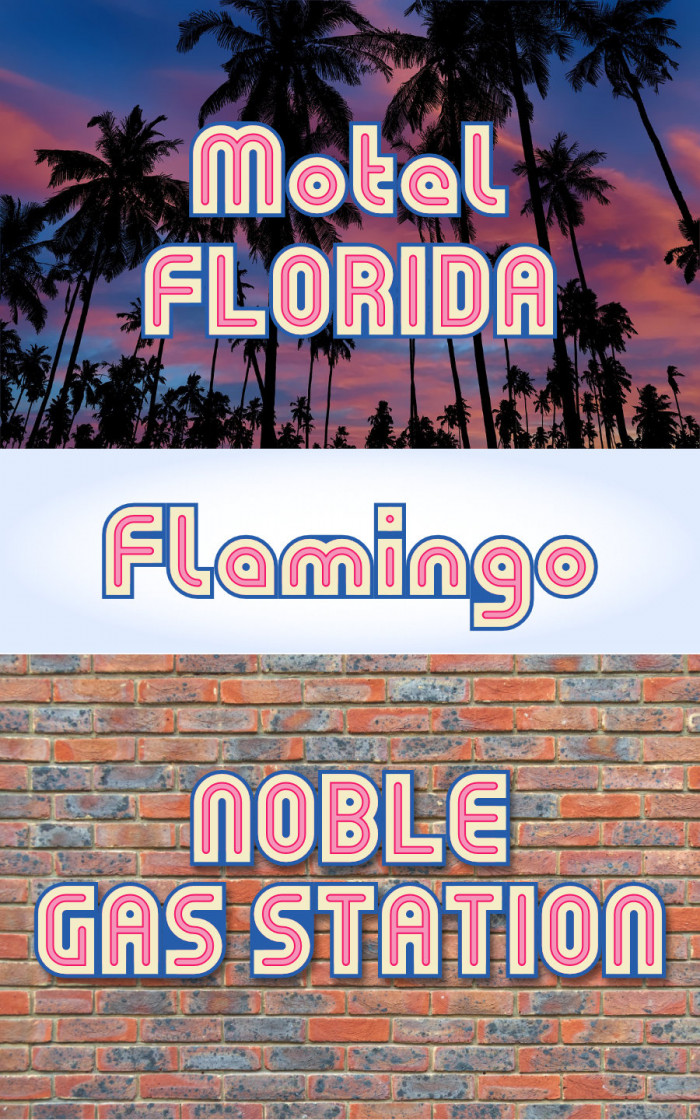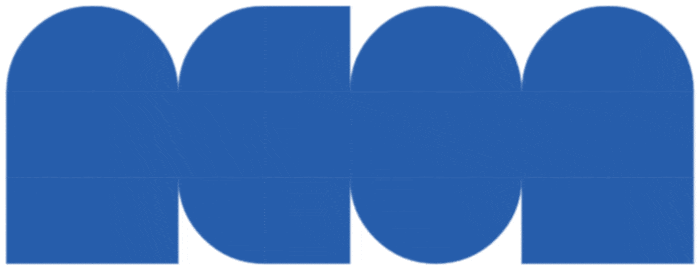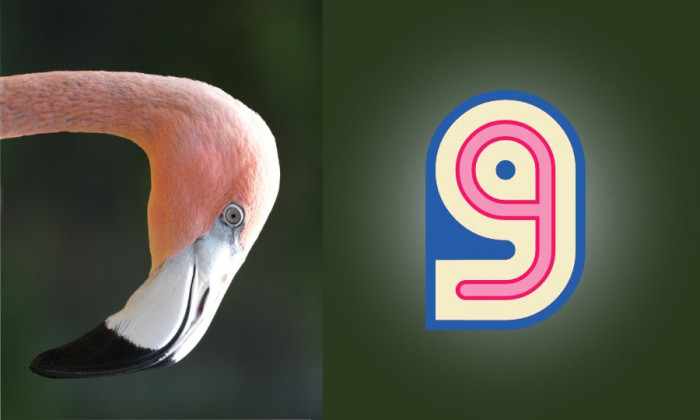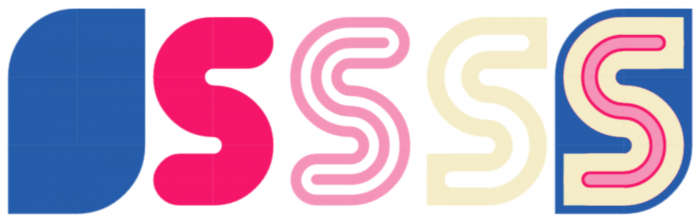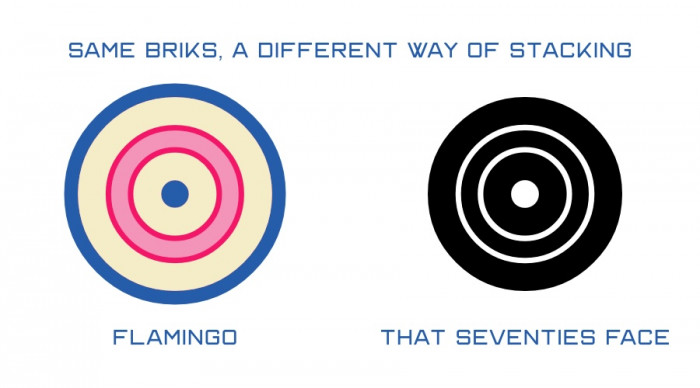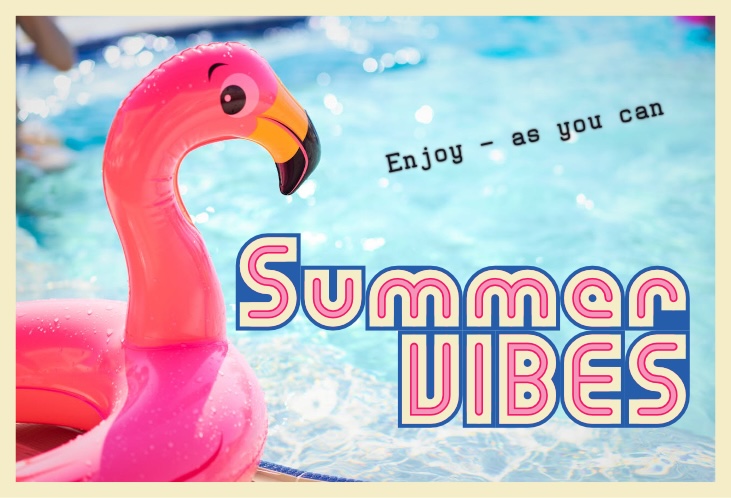
Nice neon-esque!
Nice samples!
Surprised a Good Font!
Great GIFt!
Thanks, I must admit that colour font are funner than expected.
This typeface hides more than it shows.
Very nice, I like the trick with the multiline bricks to get extra thin outline.
Pretty nice use of the connecting bricks to achieve a neon LED effect.
Then are like the Same but the other is Black...
The other is a block.
Excellent layering. Have you tried to overlap the blue outlines?
For “overlapping” do you mean trying to get rid of the white hairline between the letters or reducing the spacing to a single line between letters?
In the second case I fear it would be look too tight. As for the first option, part of the gimmick is that the letters and their backplates are cut following the constrains of industrial manufacturing, in terms of tools, speed, and cost (hence the round counters and approximate contours of |g|m|S|, etc.). Removing the hairlines would suggest a single mounting plate behind each word, which, by that logic, would be shaped differently.
It was just an idea. It looks great either way!